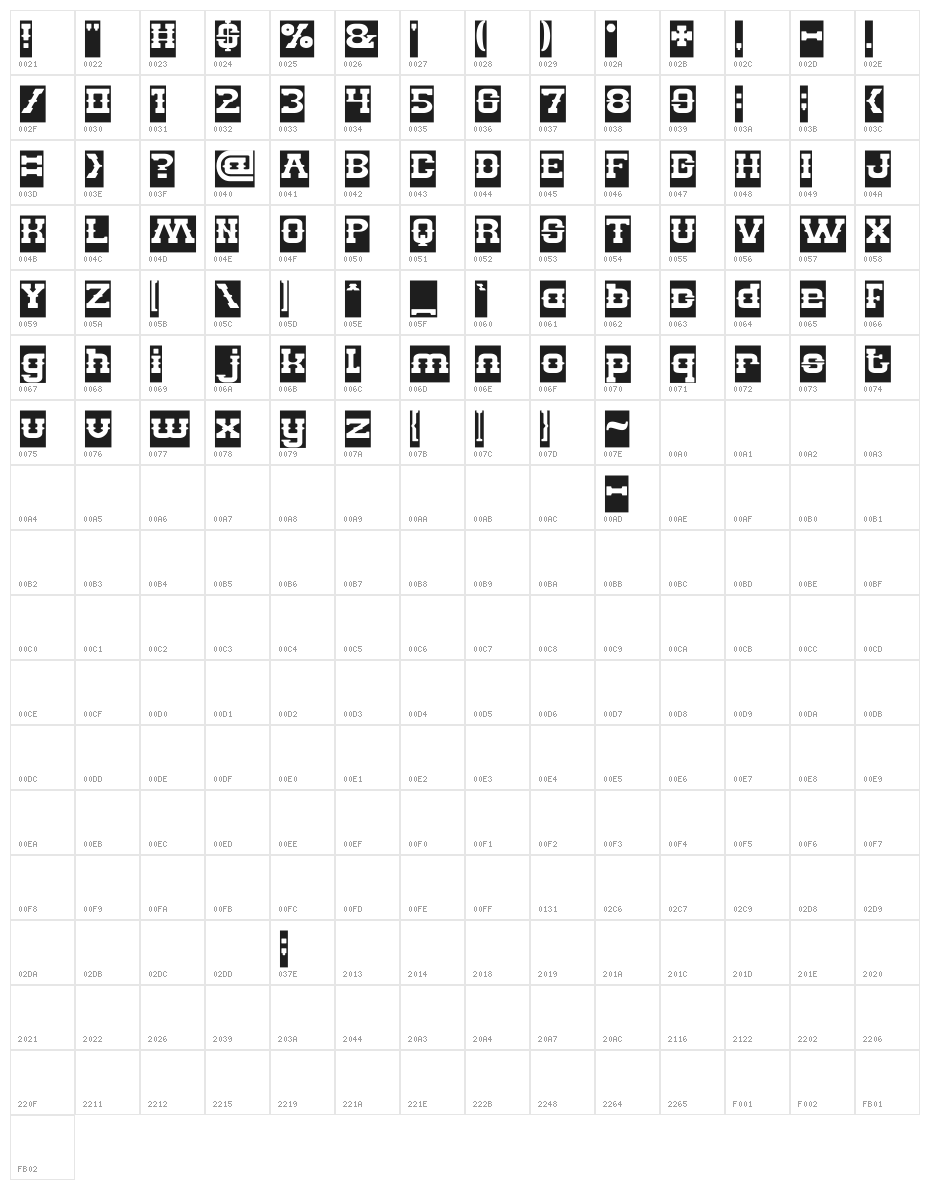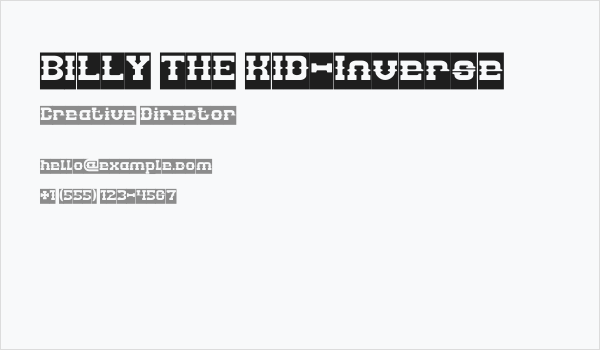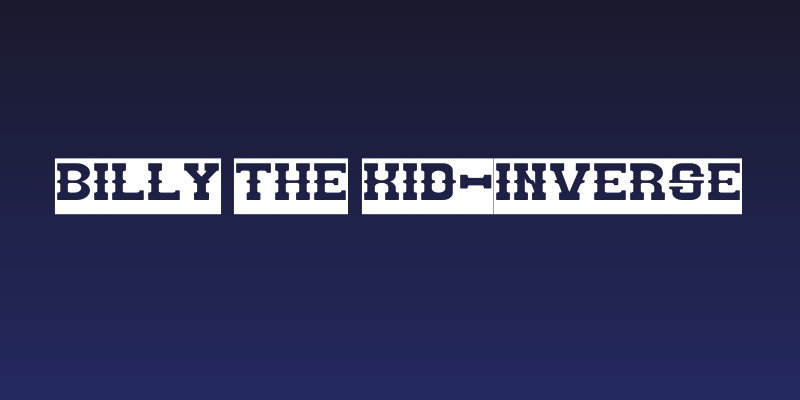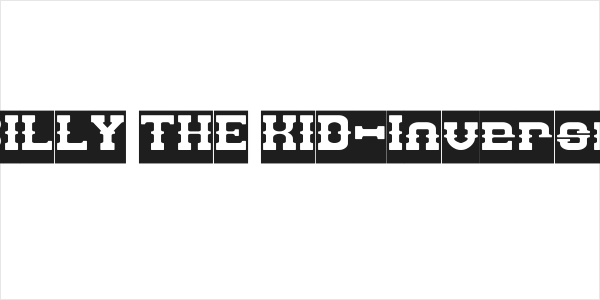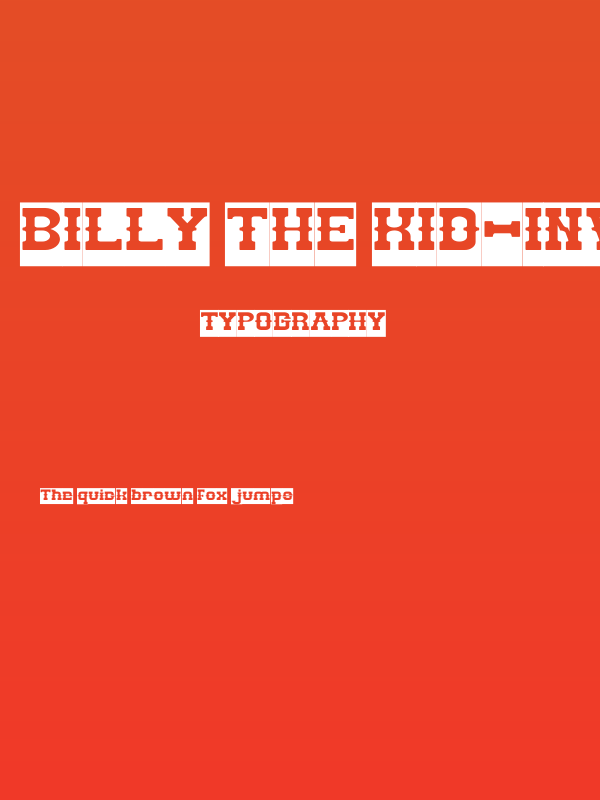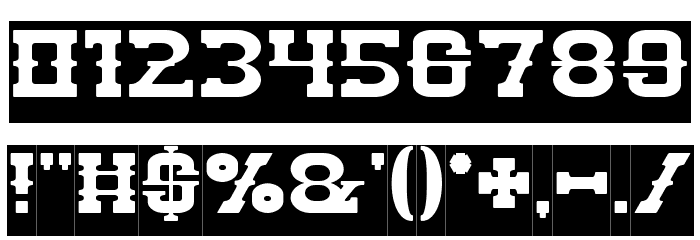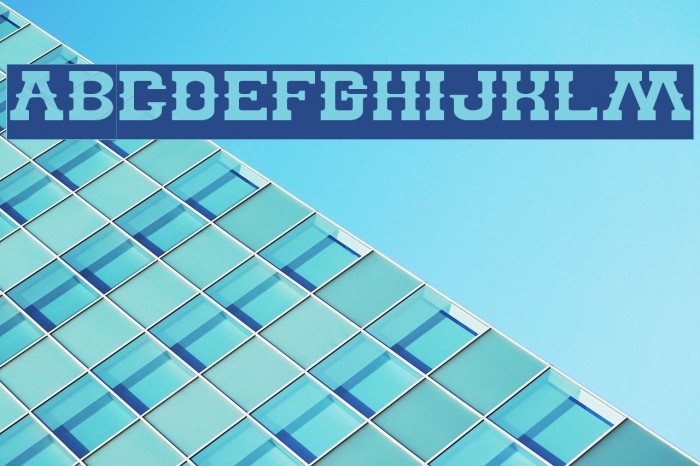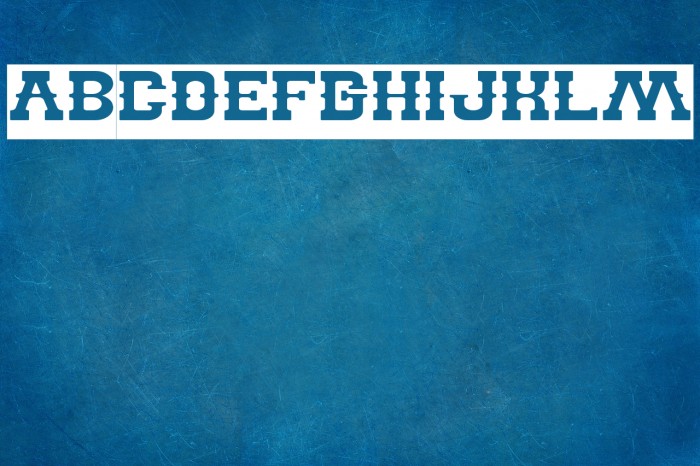
BILLY THE KID-Inverse Font
BILLY THE KID-Inverse Description
This font features a bold and striking design with a strong Western influence, reminiscent of old-style wanted posters and saloon signage. The characters are characterized by their thick, blocky serifs and a robust, slab-like appearance. The uppercase letters are particularly prominent, with a consistent height and width that convey a sense of stability and strength. The lowercase letters maintain the same boldness, with a slightly condensed form that complements the uppercase. Numbers and special characters follow the same stylistic cues, ensuring a cohesive look across all glyphs. The font's high contrast between thick and thin strokes adds to its dramatic and eye-catching appeal, making it ideal for attention-grabbing headlines and titles.
| Proposed Projects | Ideal for Western-themed posters, vintage branding, event flyers, and signage that requires a bold, attention-grabbing typeface. |